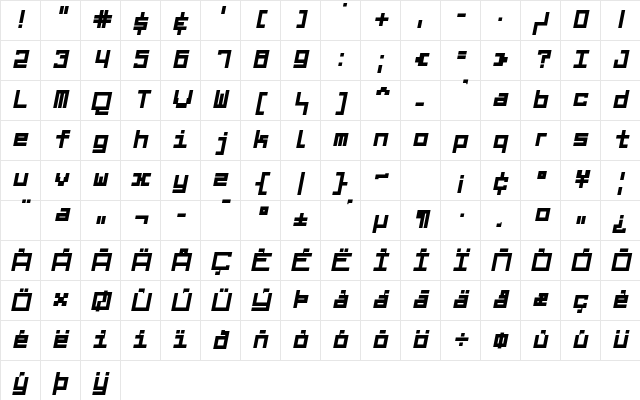
Complete Midnight Letters Italic glyph index. Displaying only characters natively supported by Midnight Letters Italic font.
Midnight Letters is a composed and adaptable typeface that performs quietly and consistently across a wide range of design contexts. The slanted form adds forward momentum and visual energy.